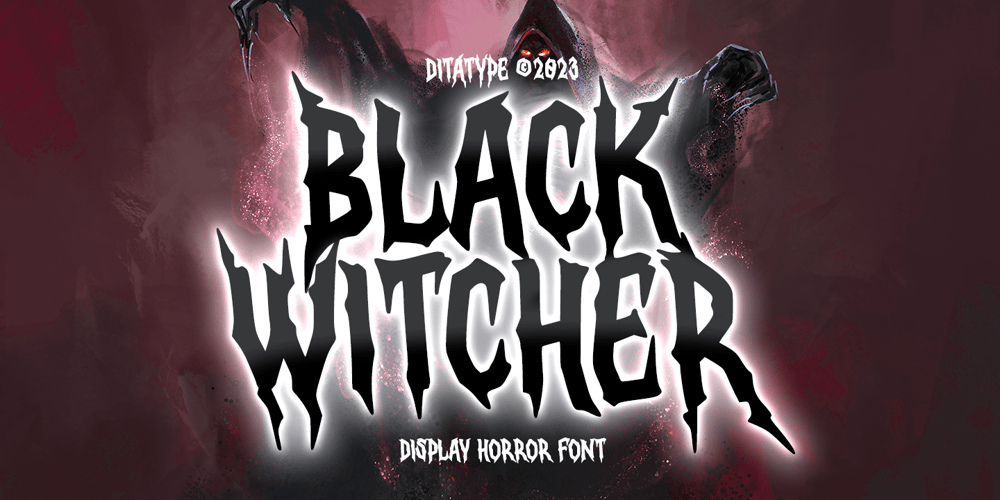
Black Witcher
Black Witcher font
Black Witcher Font Family was designed by Donis Miftahudin and published by Ditatype. Black Witcher contains 1 styles and family package options. Black Witcher is a spine-chilling display font that will cast a spell of fear on your designs. With its big letters and bold weight, this font demands attention and exudes an aura of dread. The horror theme is brought to life with meticulously crafted tree root details on each letter, adding a nightmarish and eerie touch to the font. Each letter in this font is bold and impactful, making a powerful statement in your designs. The large size of the letters enhances the font’s haunting presence. The tree root details in Black Witcher give the font a sinister and otherworldly appearance, as if the letters are entangled with ancient and malevolent roots. These haunting details add a sense of mystery and foreboding, immersing the viewer into a world of dark and chilling horrors. For the best legibility you can use this font in the bigger text sizes. Enjoy the available features here.Features: Alternates Multilingual Supports PUA Encoded Numerals and Punctuations Black Witcher fits in headlines, logos, movie posters, flyers, invitations, branding materials, print media, editorial layouts, headers, and any horror-themed project. Find out more ways to use this font by taking a look at the font preview.Thanks for purchasing our fonts. Hopefully, you have a great time using our font. Feel free to contact us anytime for further information or when you have trouble with the font. Thanks a lot and happy designing.